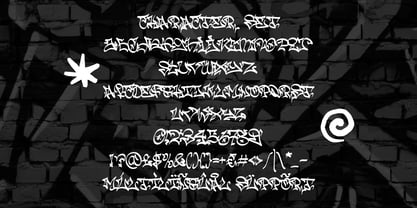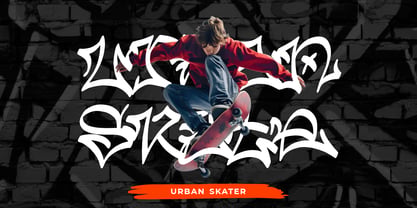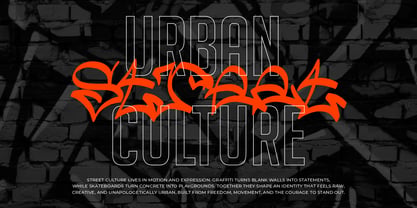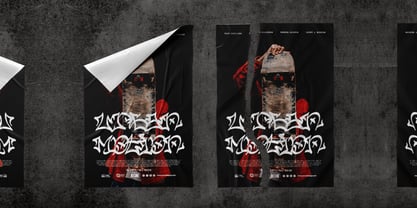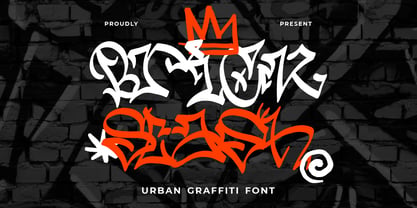
Brick Slash
by Shanaf
The Brick Slash Font Family was designed by Yesie Erma Yunita and published by Shanaf. Brick Slash contains 1 styles. More about this family
Brick Slash Urban Graffiti Font captures raw street energy through sharp lettering and expressive movement. The characters feature long angular strokes, pointed edges, and flowing graffiti connections that create a fast urban rhythm. Tall forms mix with stretched curves, giving each word an aggressive and rebellious presence. The font combines handwritten spray style with modern street aesthetics, making it feel dynamic and alive. Thin and thick line variations add motion while keeping the structure readable for large displays. This typeface works perfectly for hip hop branding, skate culture projects, music promotions, gaming titles, and underground event visuals. Use it for logos, posters, social media graphics, album covers, stickers, magazine titles, advertising layouts, film titles, and creative packaging that needs strong street identity.
Brick Slash Urban Graffiti Font performs strongly in headline compositions and expressive logo systems. The sharp terminals and looping accents create an authentic tagging style inspired by urban wall art and street calligraphy. Decorative swashes bring personality without losing readability in short phrases and bold titles. This font matches themes such as street culture, freestyle art, nightlife, breakdance events, rap communities, urban gaming, and modern youth branding. It also fits cafés, creative studios, barbershops, music channels, and entertainment businesses that need energetic visuals. The layered graffiti structure gives designs a handcrafted and spontaneous feel. Pair it with minimal sans serif text for contrast and cleaner layouts. This font helps branding stand out with movement, confidence, and strong metropolitan character.
Designers: Yesie Erma Yunita
Foundry: Shanaf